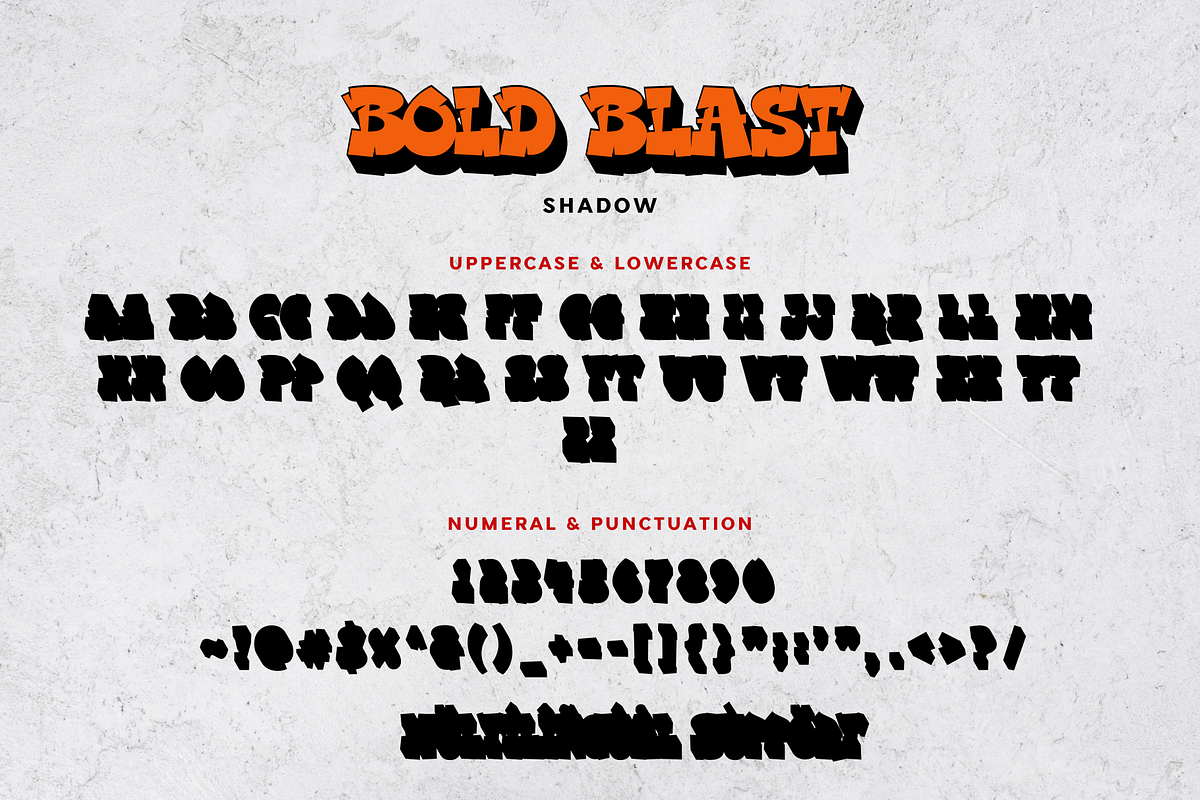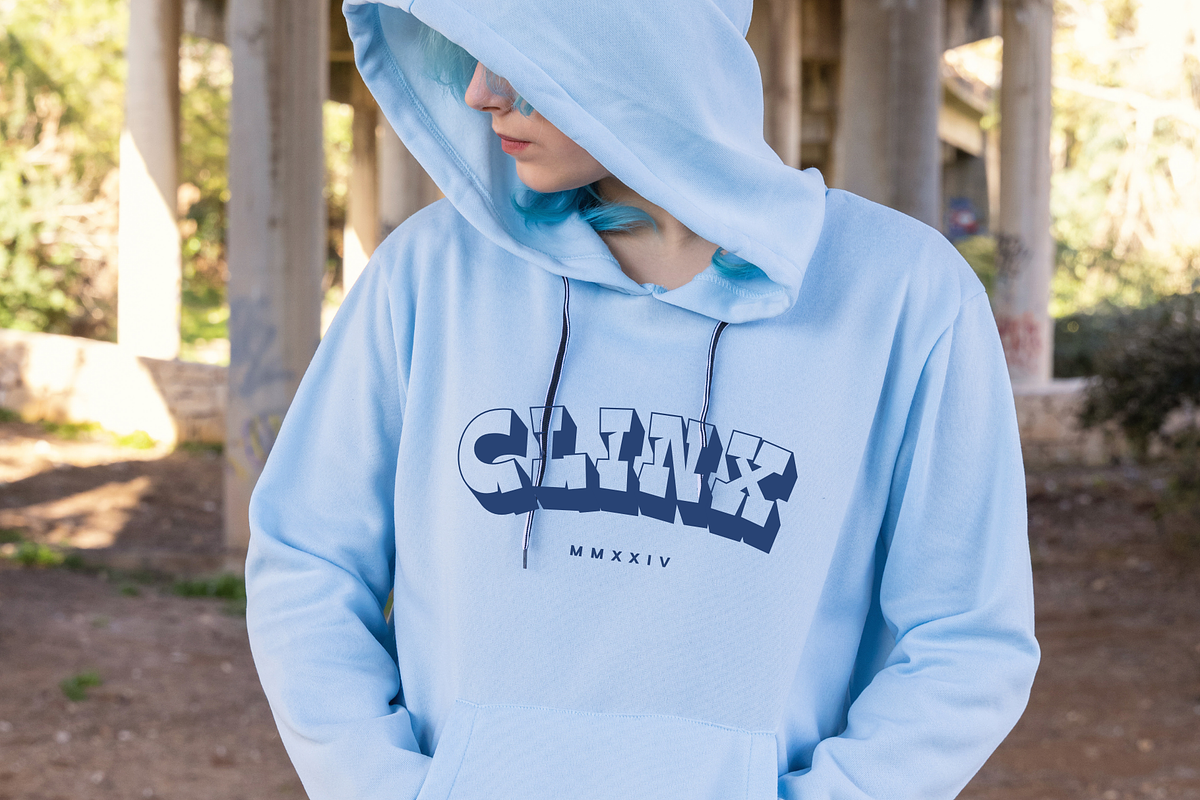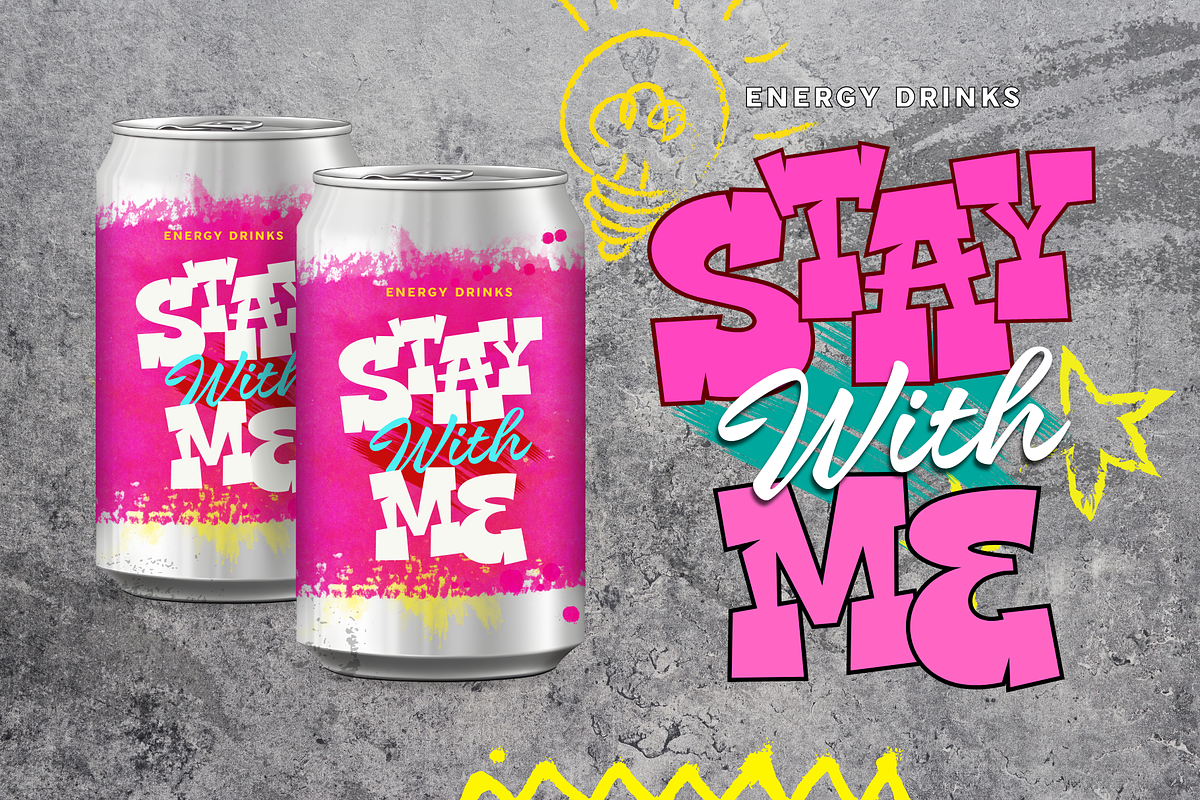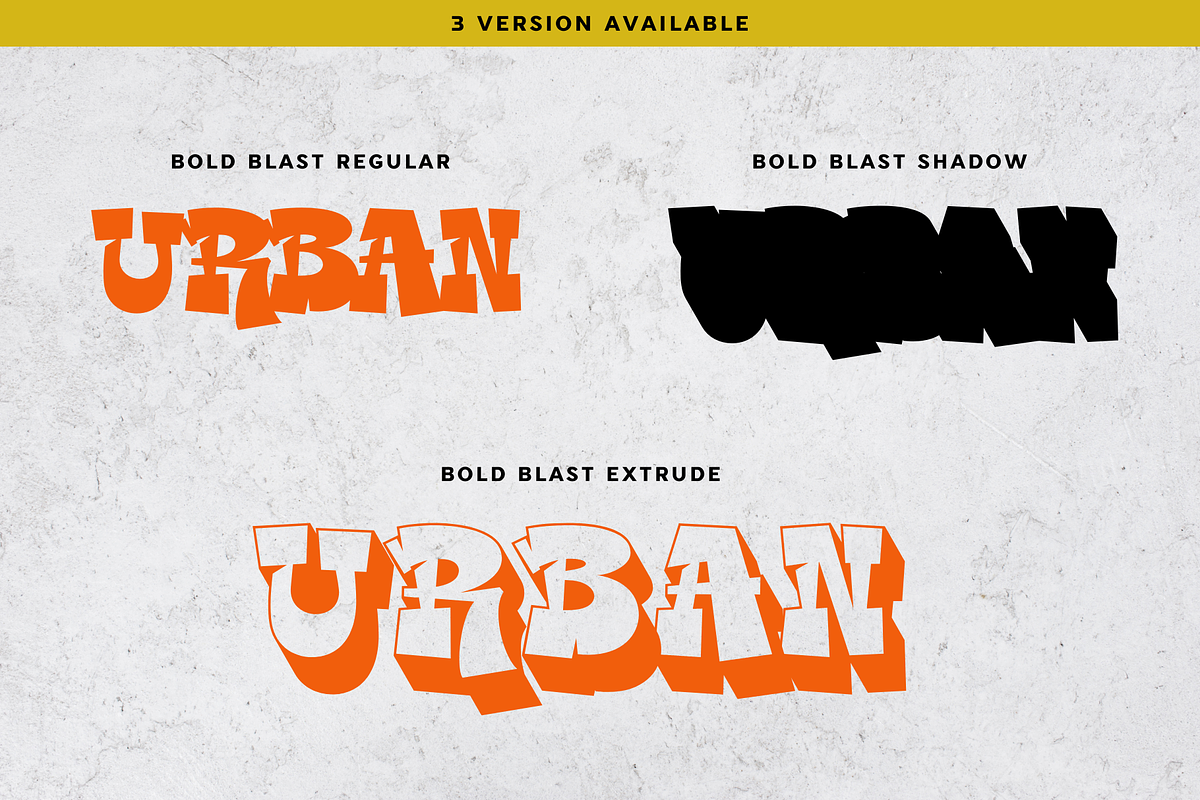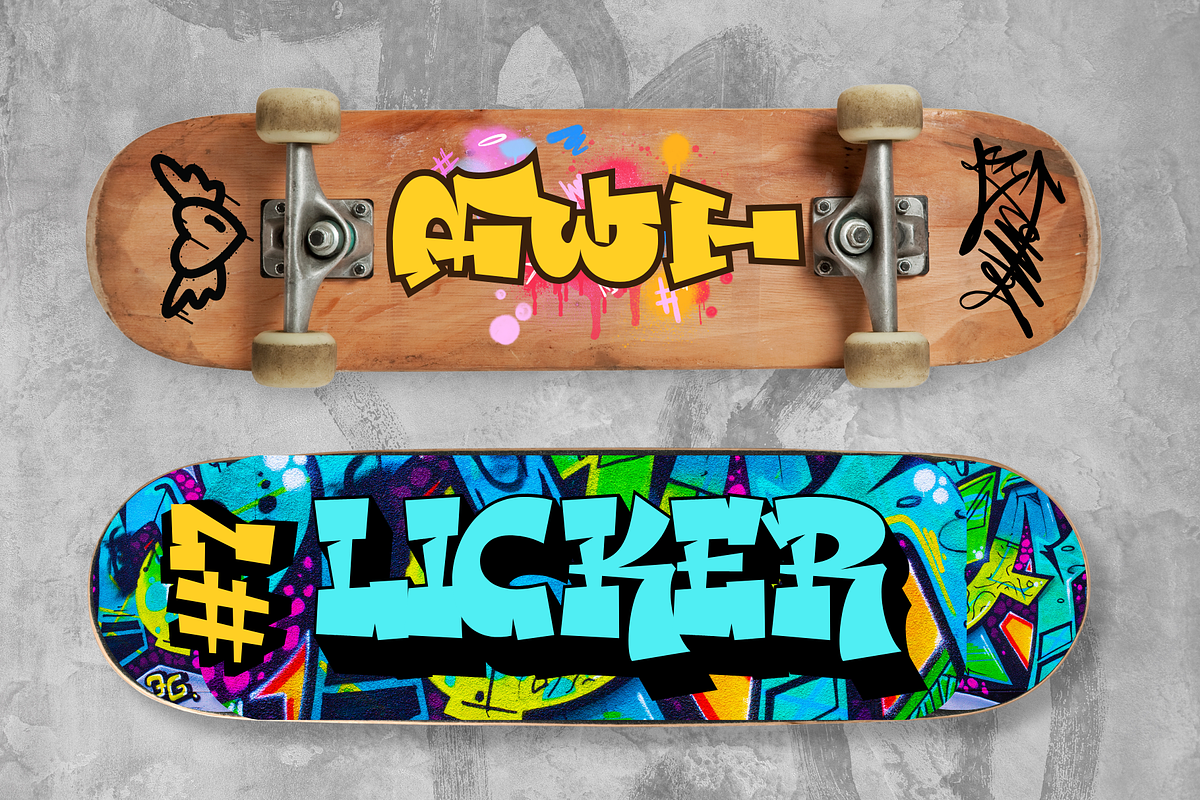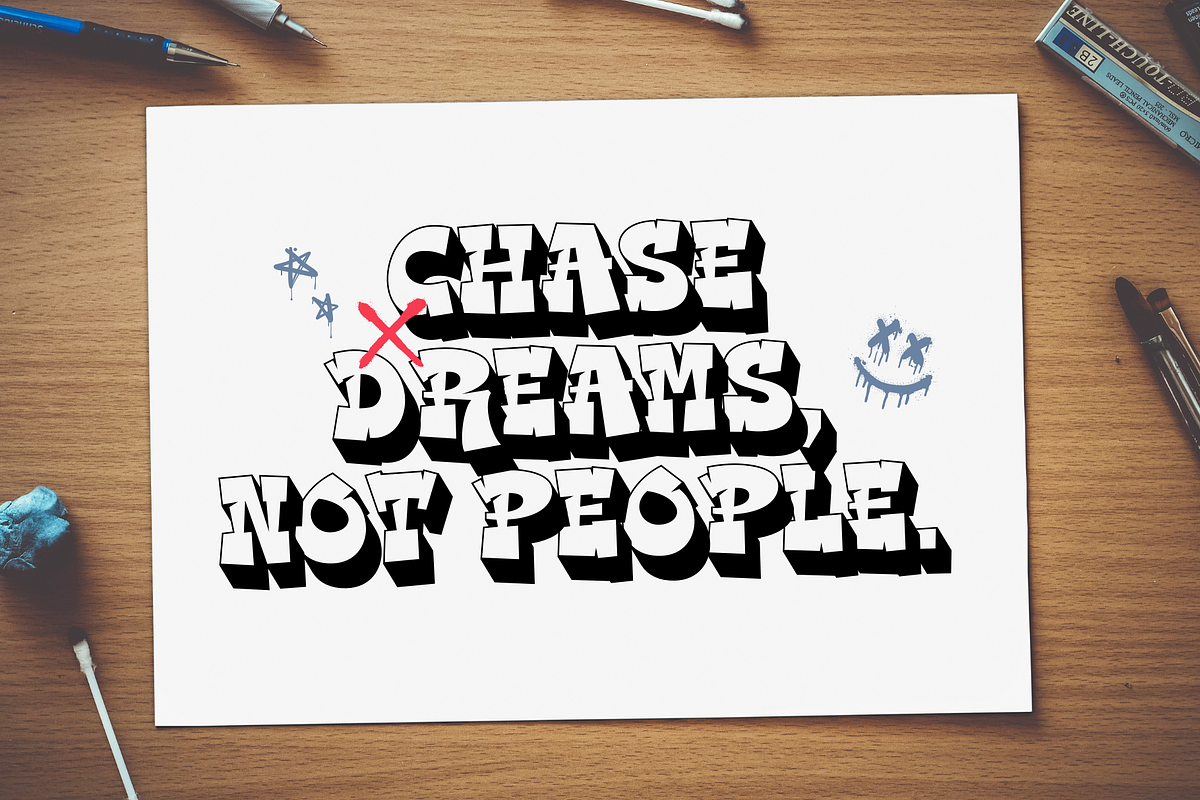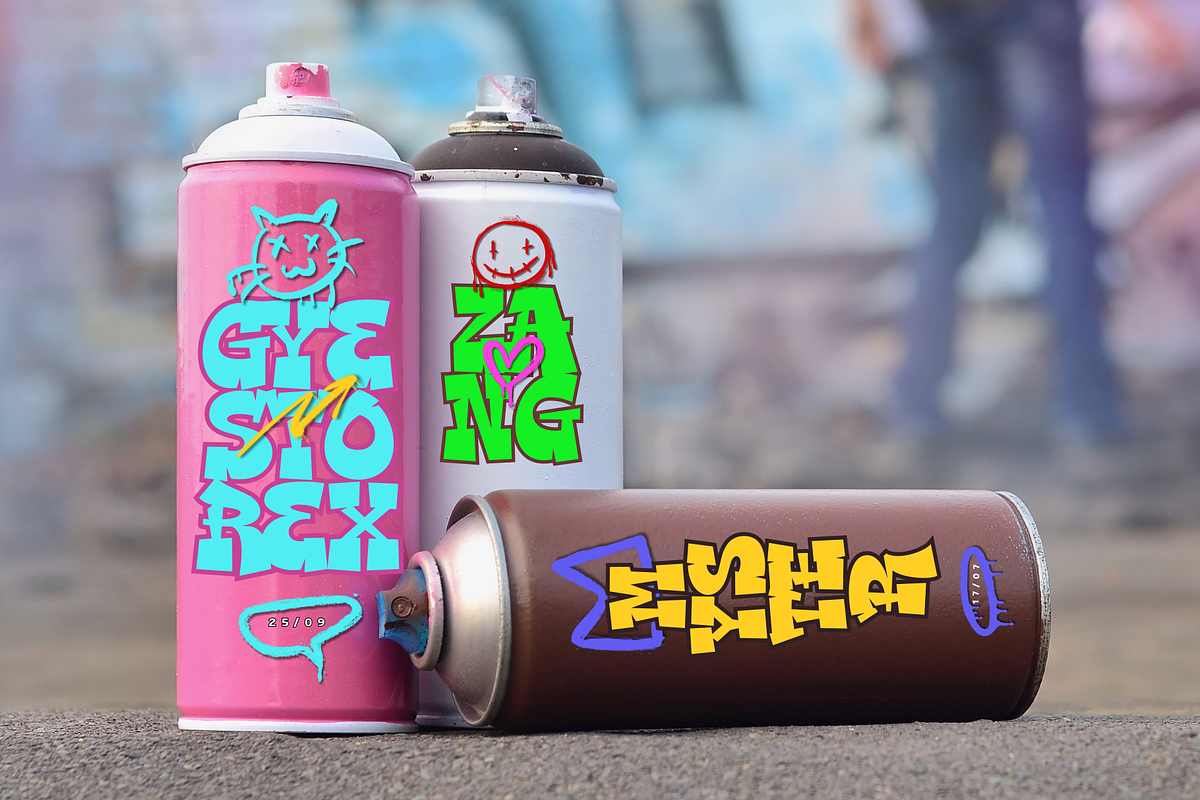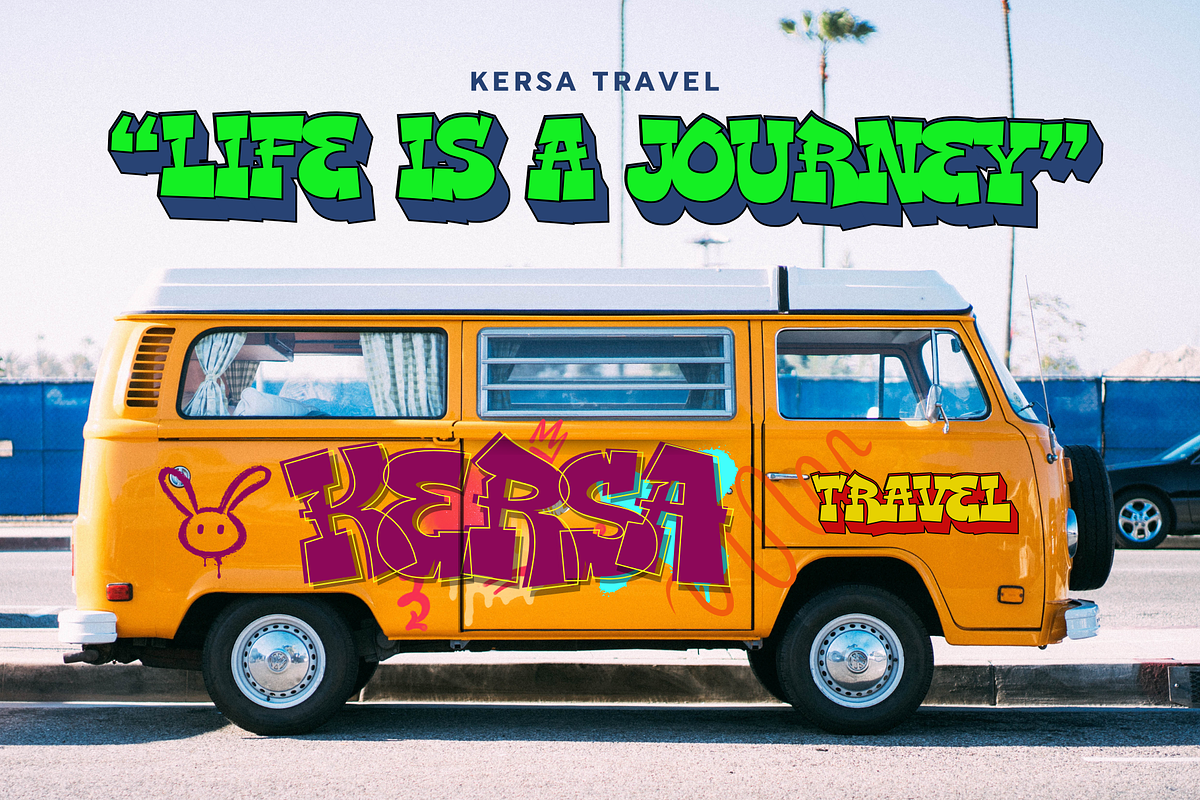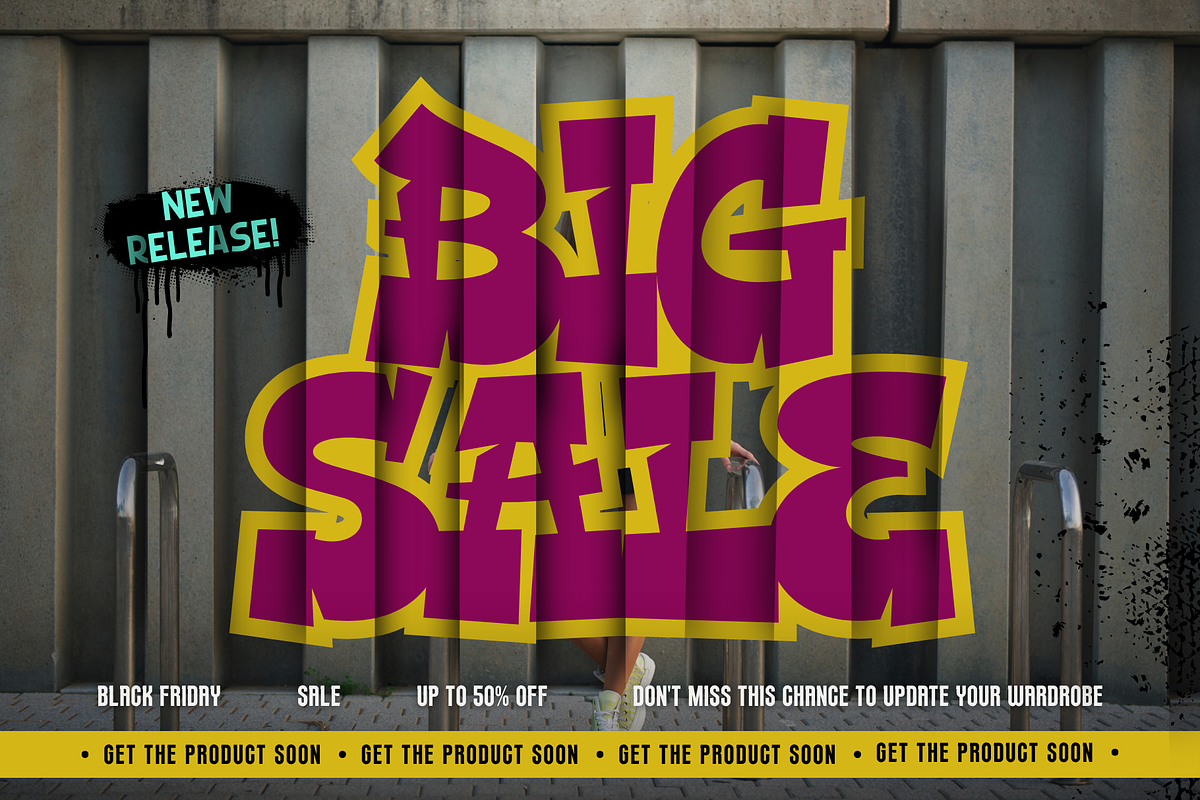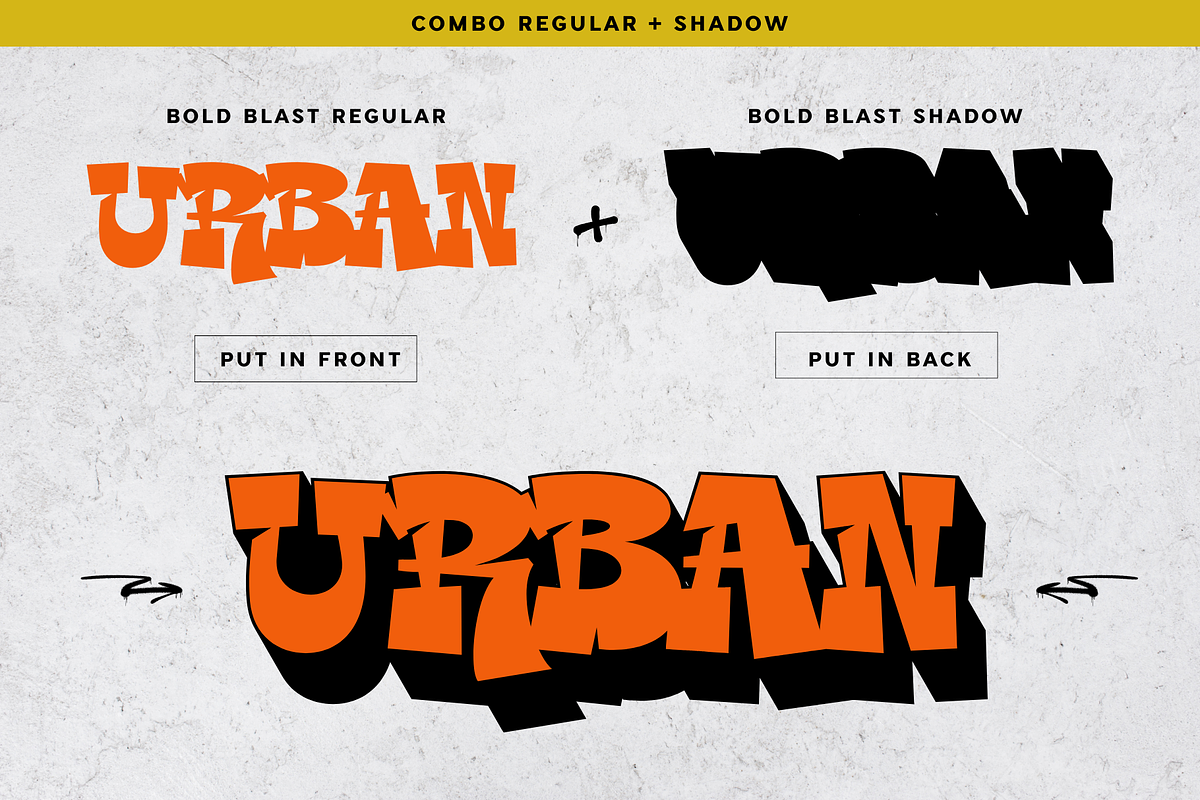
Bold Blast - Urban Graffity Font
Bold Blast is an urban graffiti font with a bold and edgy style. Its striking, dynamic characters bring street art to life, making it perfect for posters, apparel, and urban-themed designs. Bold Blast adds a raw, expressive touch to any project.
- 3 Style : Regular, Shadow & Extrude